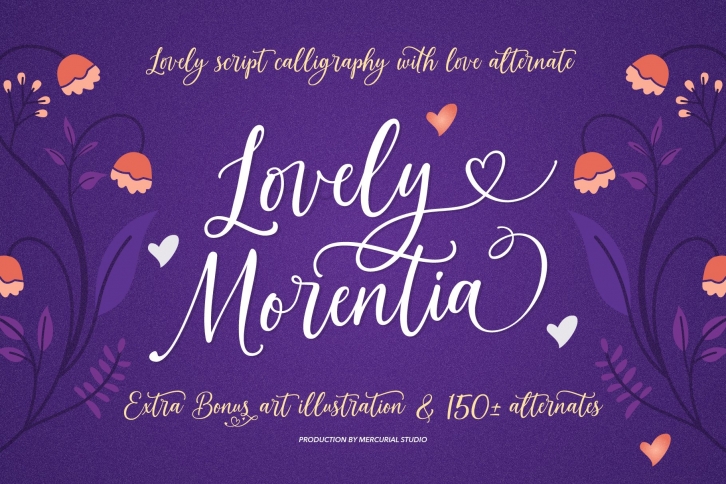
Lovely Morentia is a trendy and unique font with an authentic style. It was designed by Mercurial and it's a great choice for creative people who need such a font. It was released on June 14, 2022 and the file size is 5.44 MB. Lovely Morentia will add an organic vibe to any design idea!